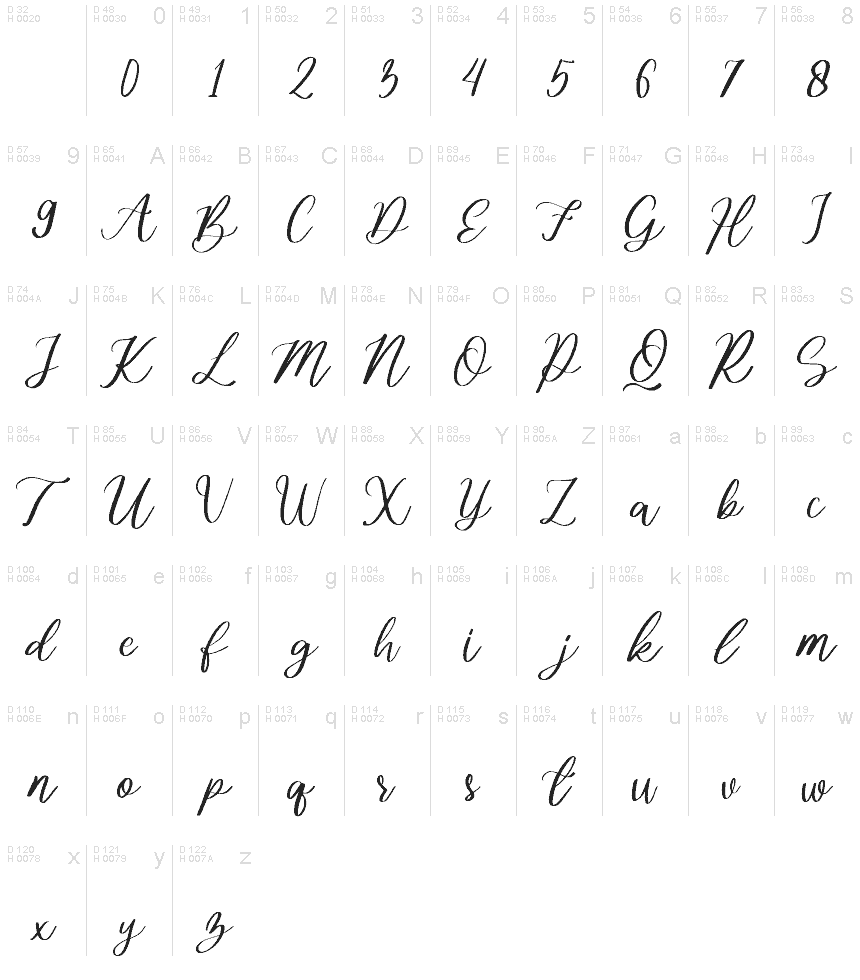
Banday Regular
Banday font is an expressive and sophisticated handwritten typeface. With its elegant and flowing style, it perfectly combines modern aesthetics with an artisanal touch for eye-catching cover designs.